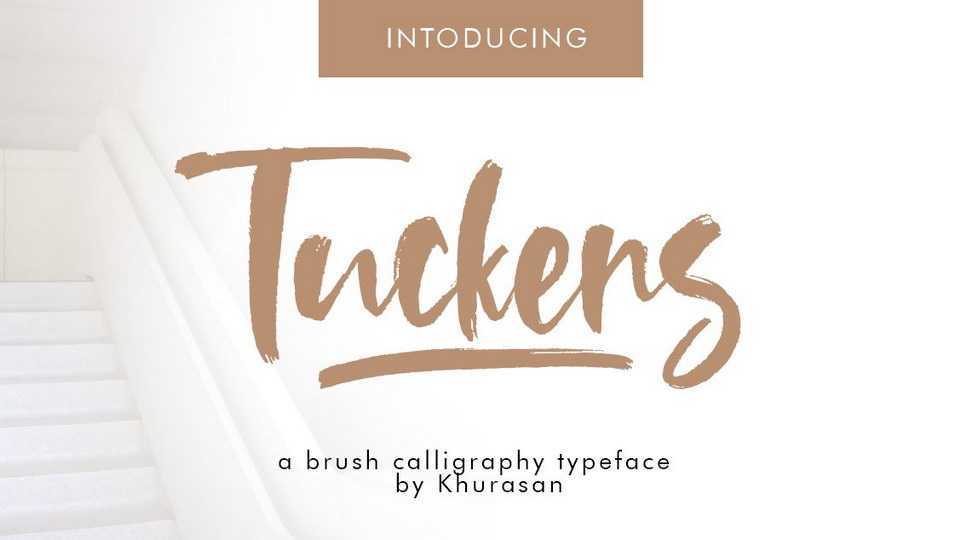
Download Tuckers font, a stylish handwritten brush script with a natural texture, elegant and vintage feel character set. Great for crafts, posters, packaging, apparel, social media and other creative designs.